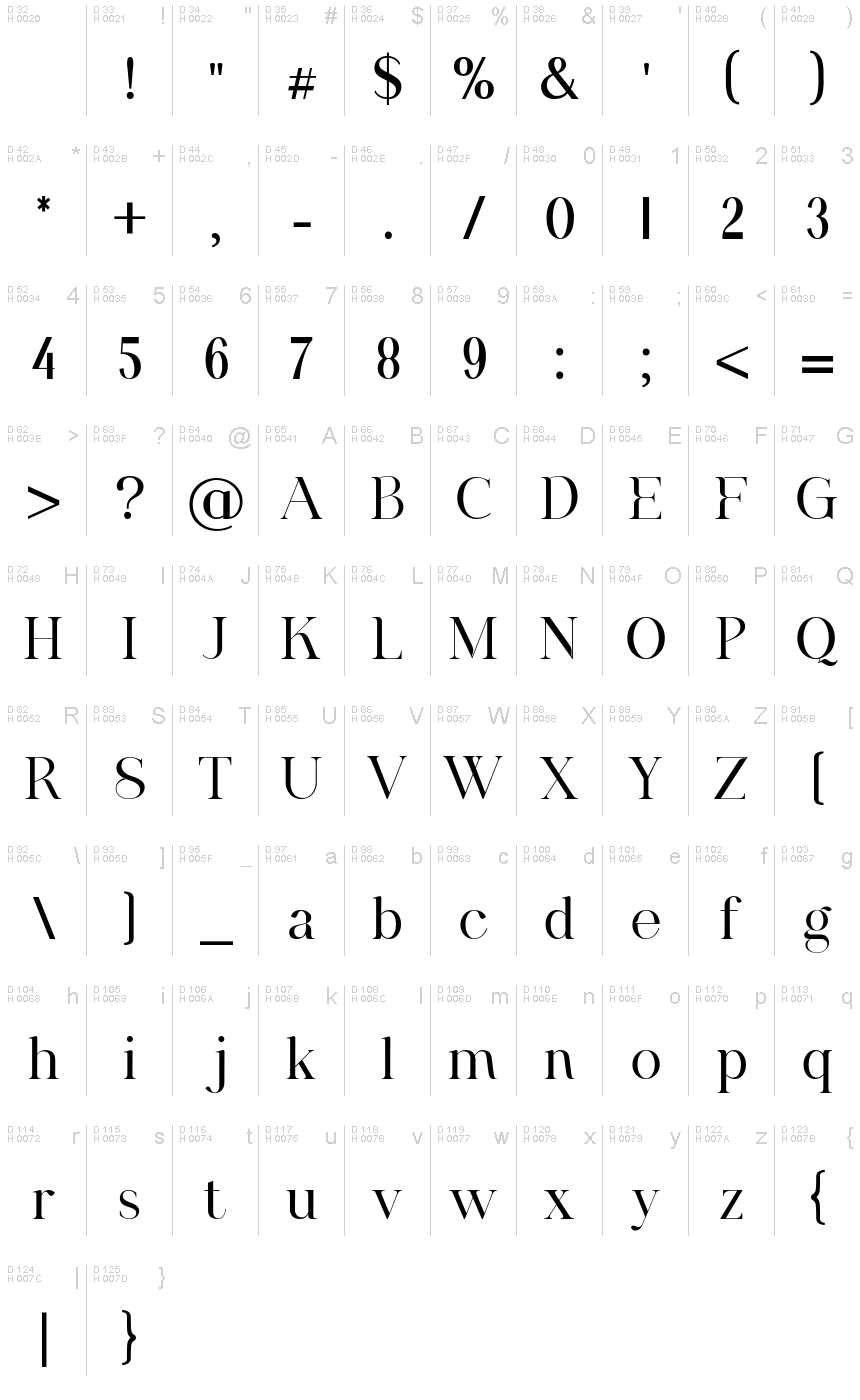
StardustCelestina
Stardust Celestina, a captivating serif font crafted by UI Creative, exudes a captivating blend of elegance and celestial wonder. Its delicate, flowing strokes and subtle serifs evoke a sense of timeless sophistication, while the subtle celestial accents lend an enchanting, otherworldly charm. This font's harmonious balance between classical refinement and celestial inspiration makes it a true standout, ensuring a captivating visual experience for any design.
Stardust Celestina's versatility shines through, making it an excellent choice for a wide range of design applications. Its refined, yet alluring aesthetic lends itself seamlessly to high-end branding, editorial layouts, and artistic projects, where it can elevate the overall aesthetic with its unique blend of elegance and celestial flair. Whether in the realm of luxury packaging, sophisticated invitations, or captivating book covers, Stardust Celestina's ability to infuse designs with a touch of celestial elegance is truly captivating.